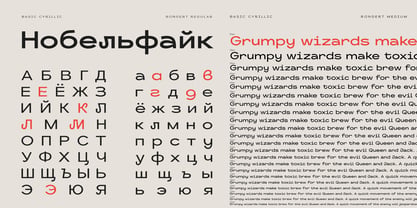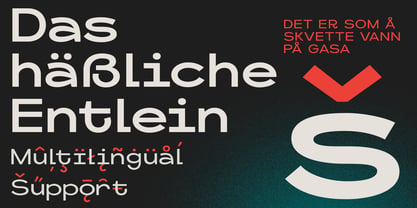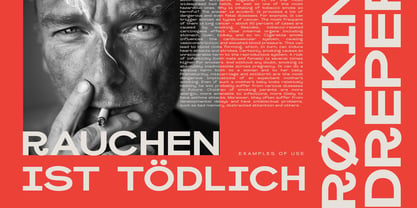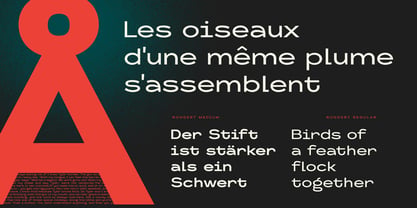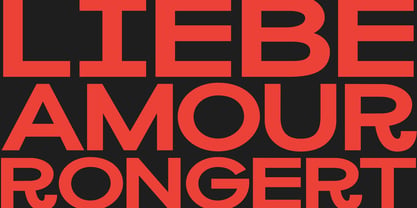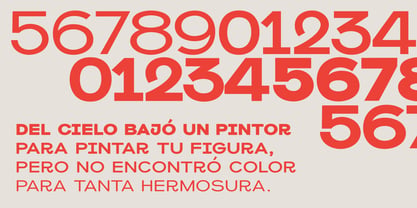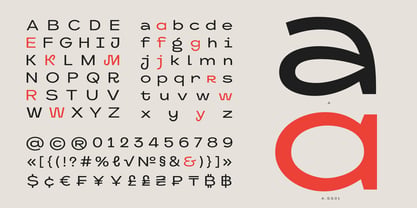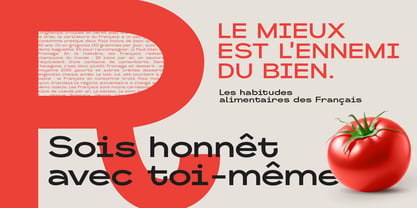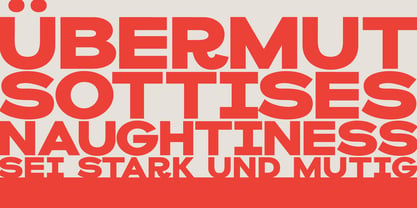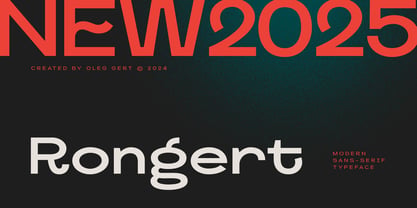
Rongert
by Oleg Gert
The Rongert Font Family was designed by Oleg Gert and published by Oleg Gert. Rongert contains 8 styles and family package options. More about this family
Rongert - modern sans-serif typeface combines strength and style, turning every text into a work of art. It's expressive lines and modern character make it a choice for branding, creative design and striking headlines. Rongert is easy to read and gives text a unique accent, maintaining a balance between aesthetics and functionality.